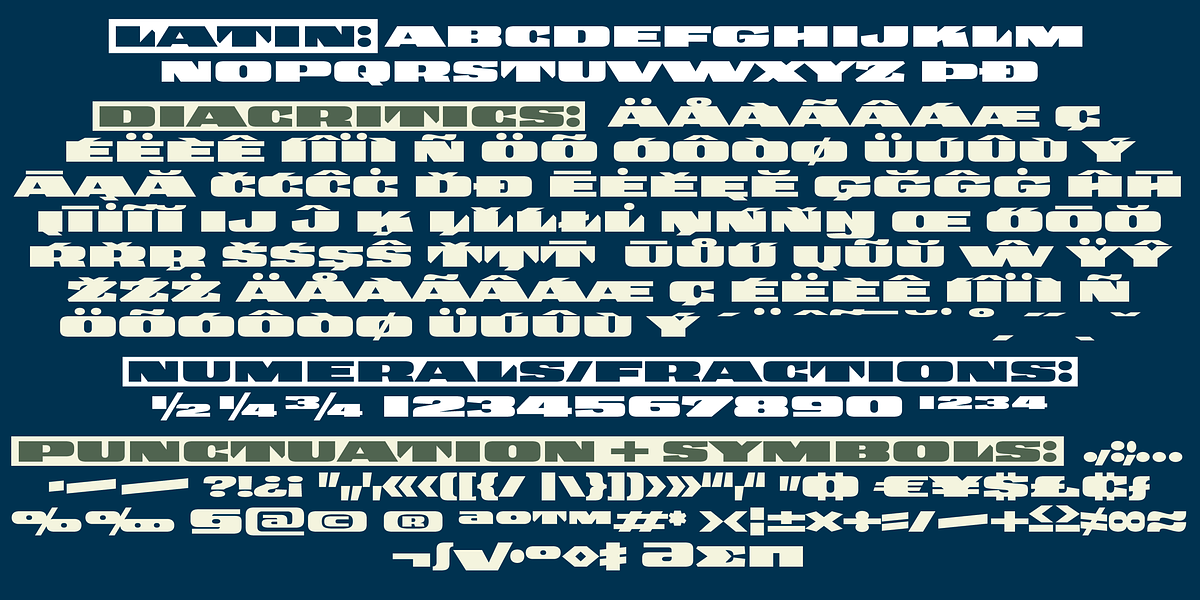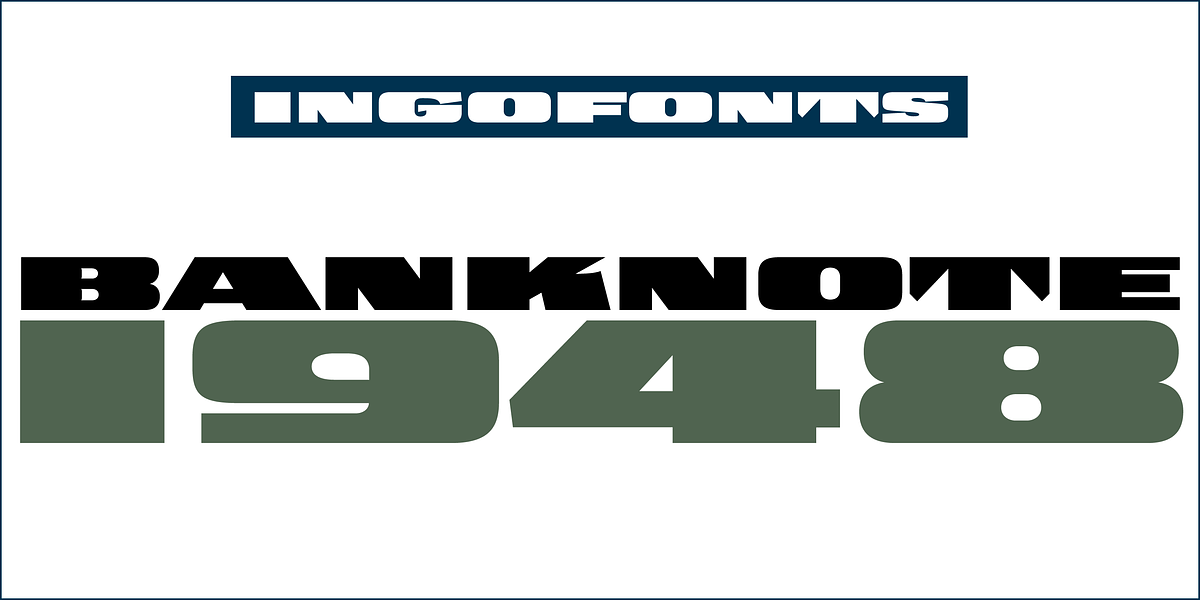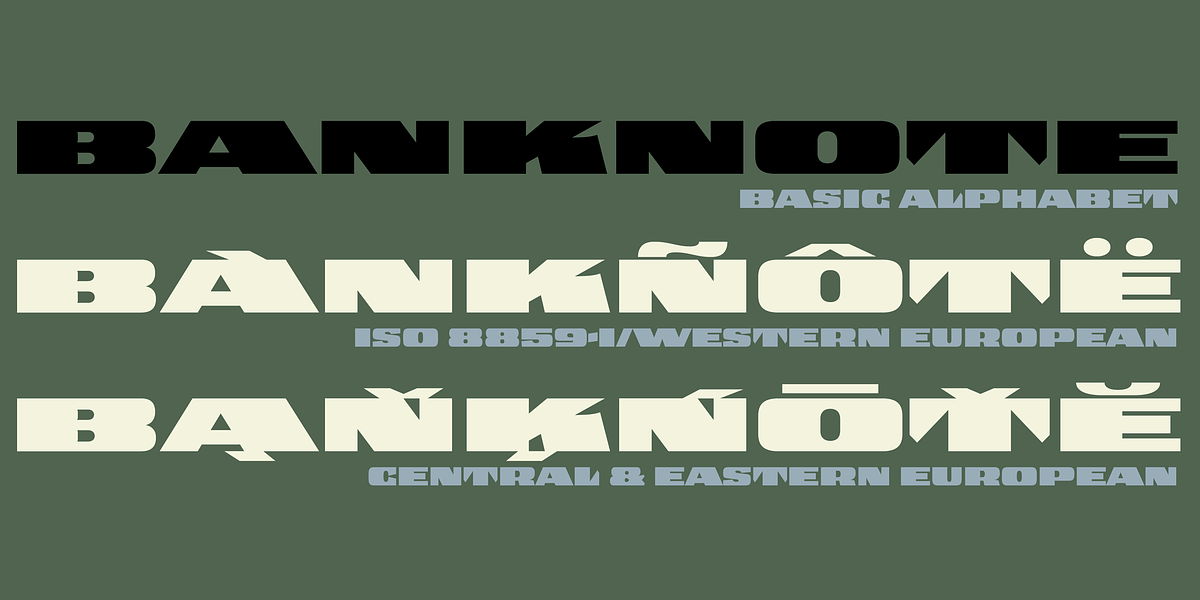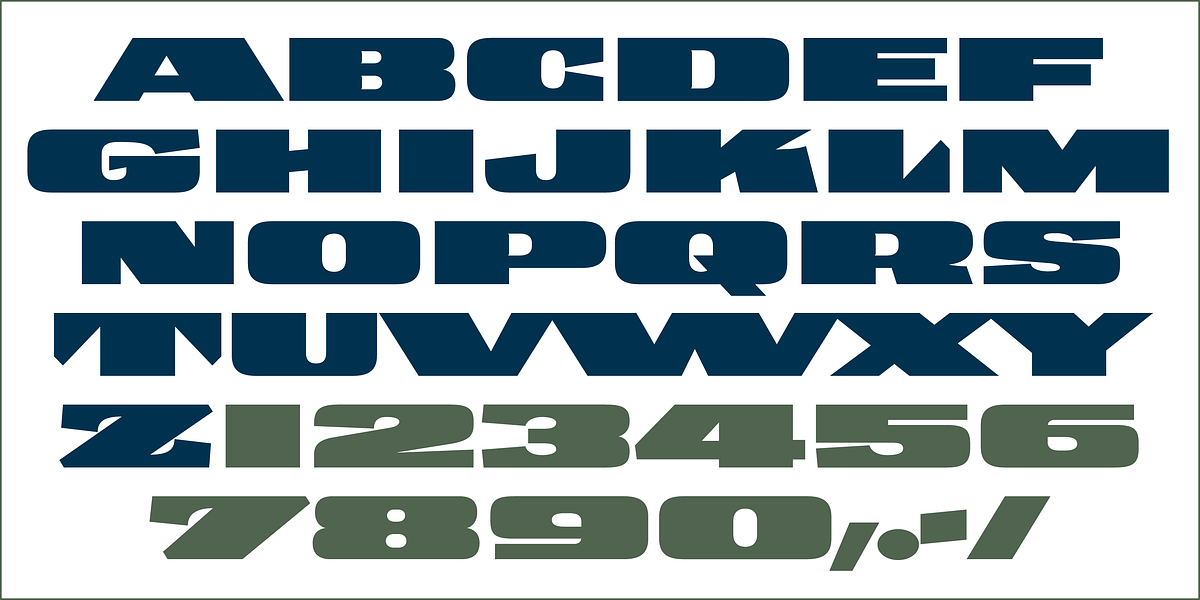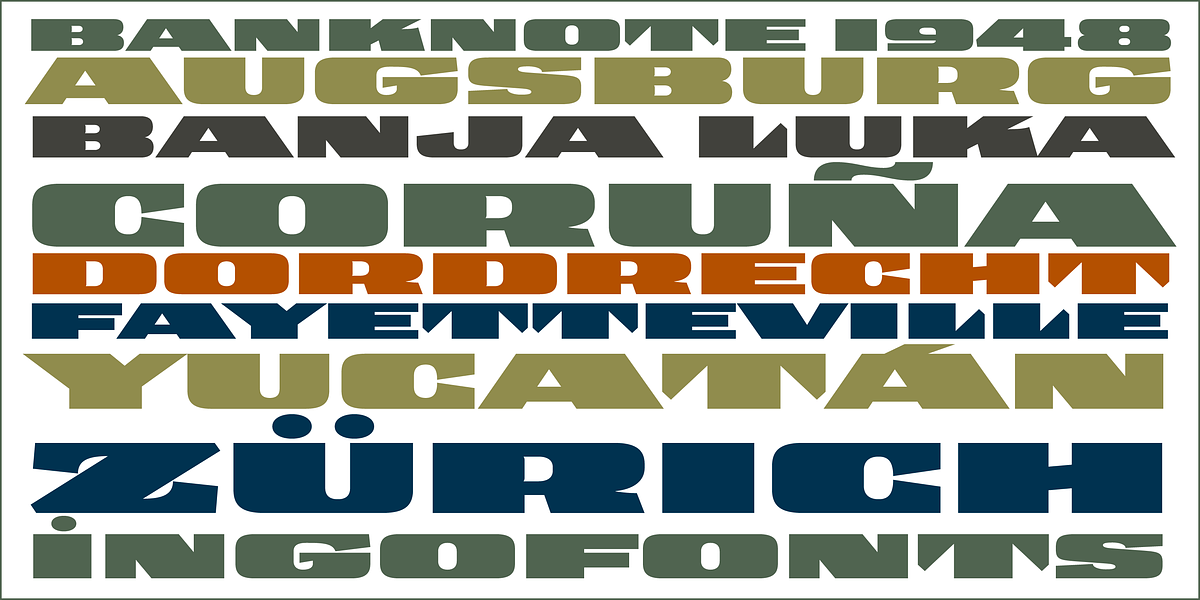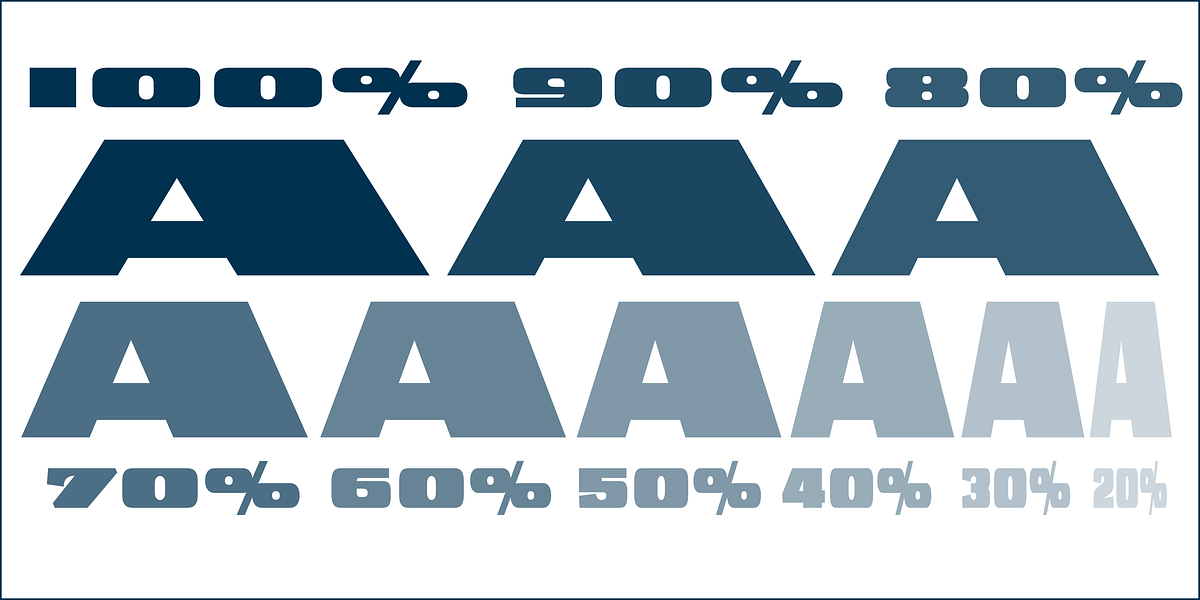
Banknote 1948
This font is a geometric sans serif designed in all caps. It draws inspiration from the inscription style found on an old Deutsche Mark banknote. Its bold and expanded letterforms make it suitable for headlines, display text, and branding applications. The design suggests a vintage aesthetic.